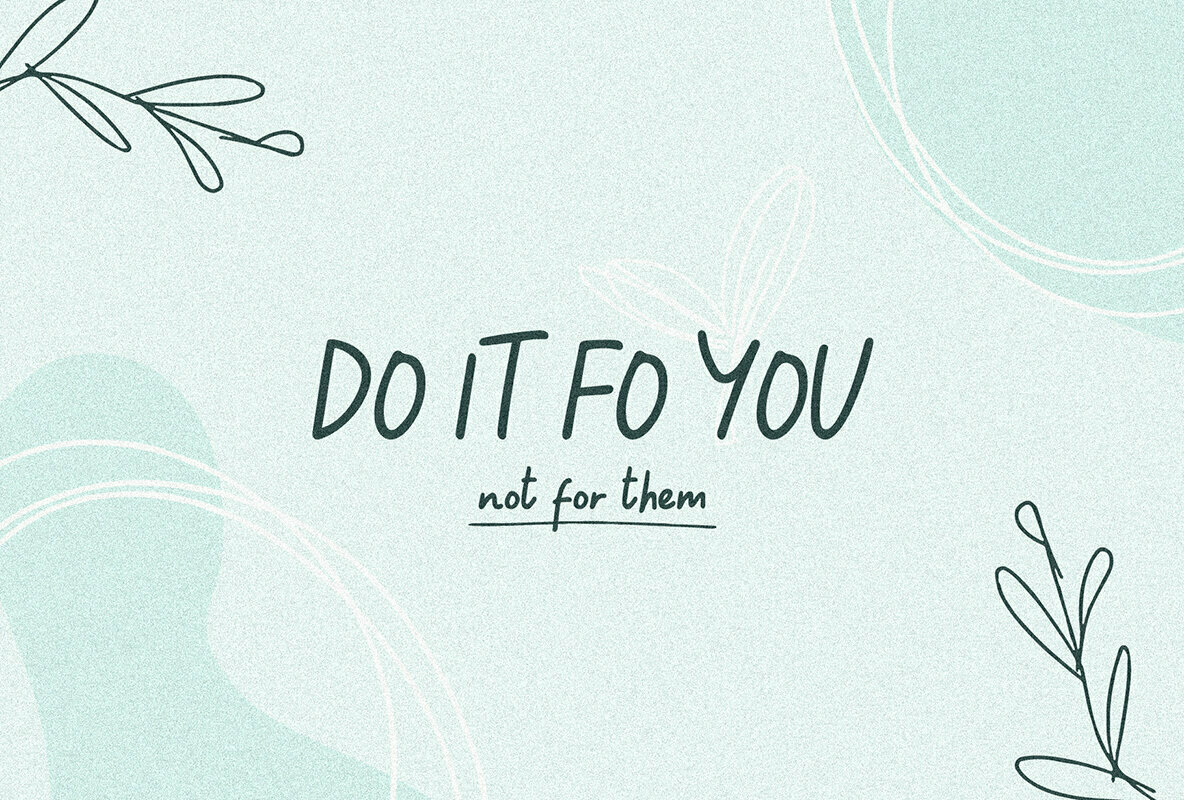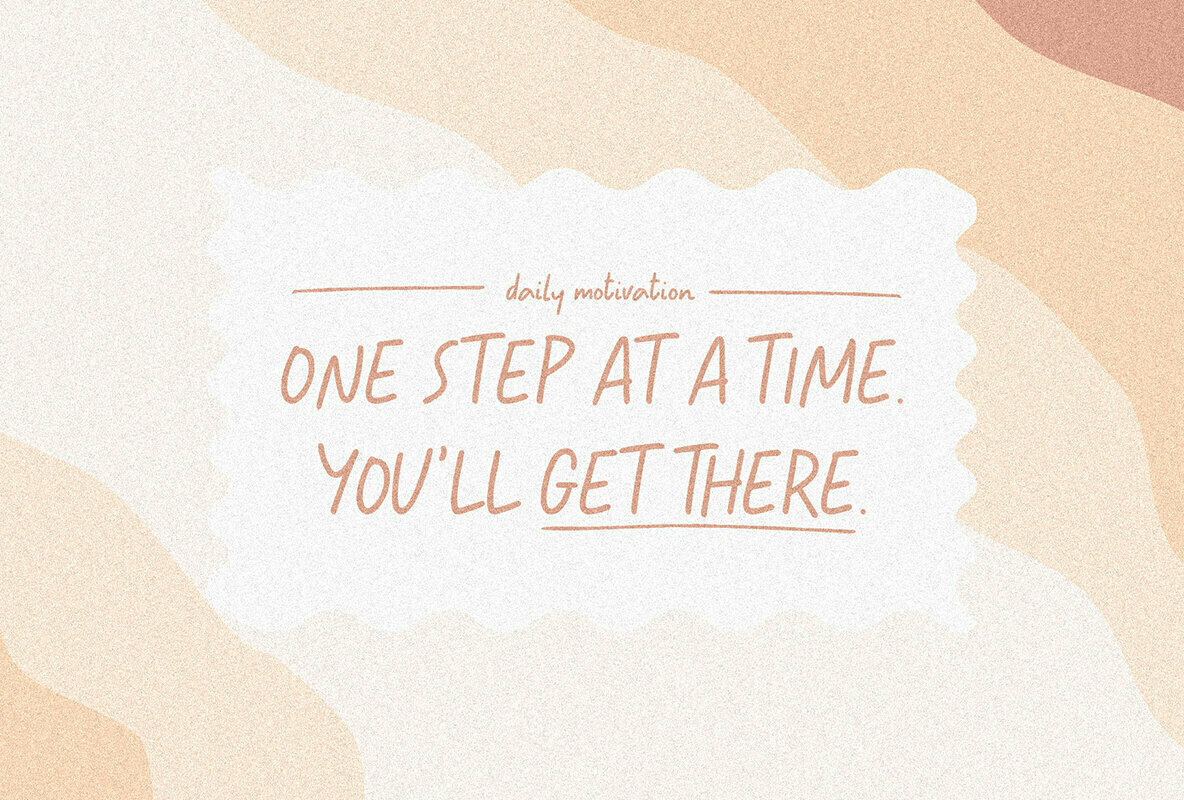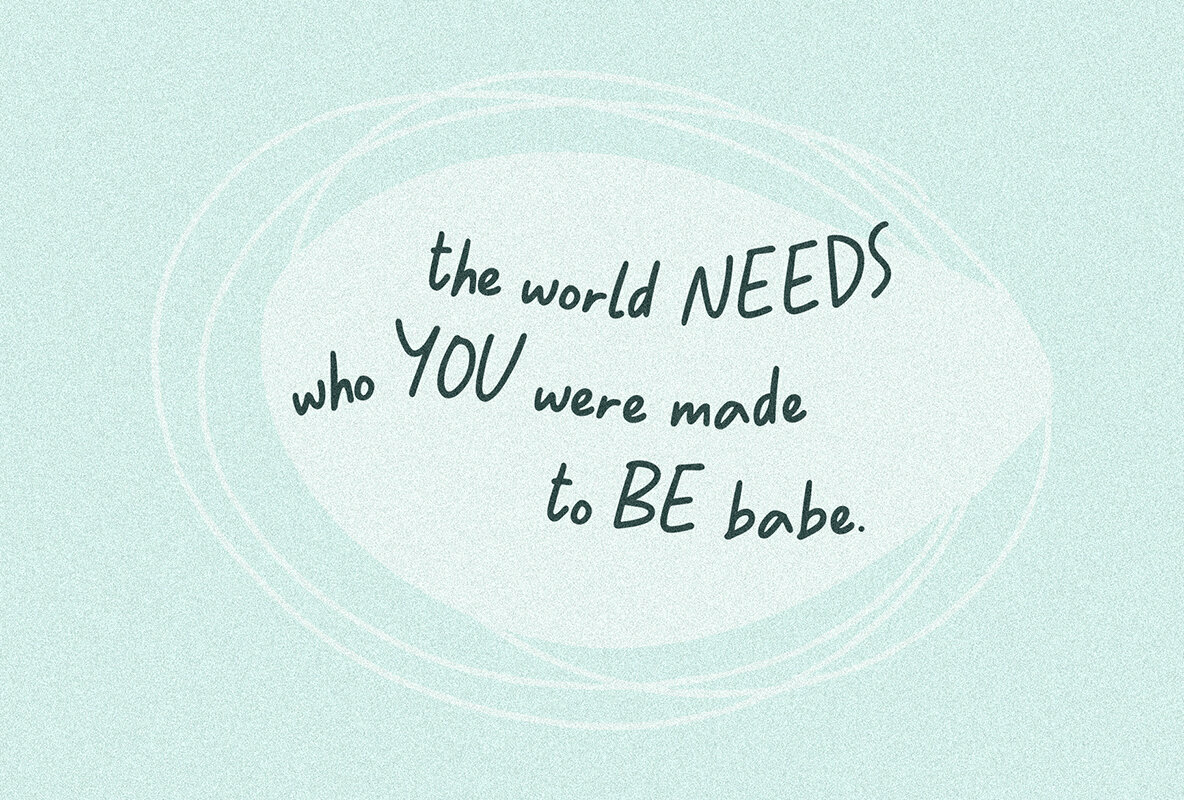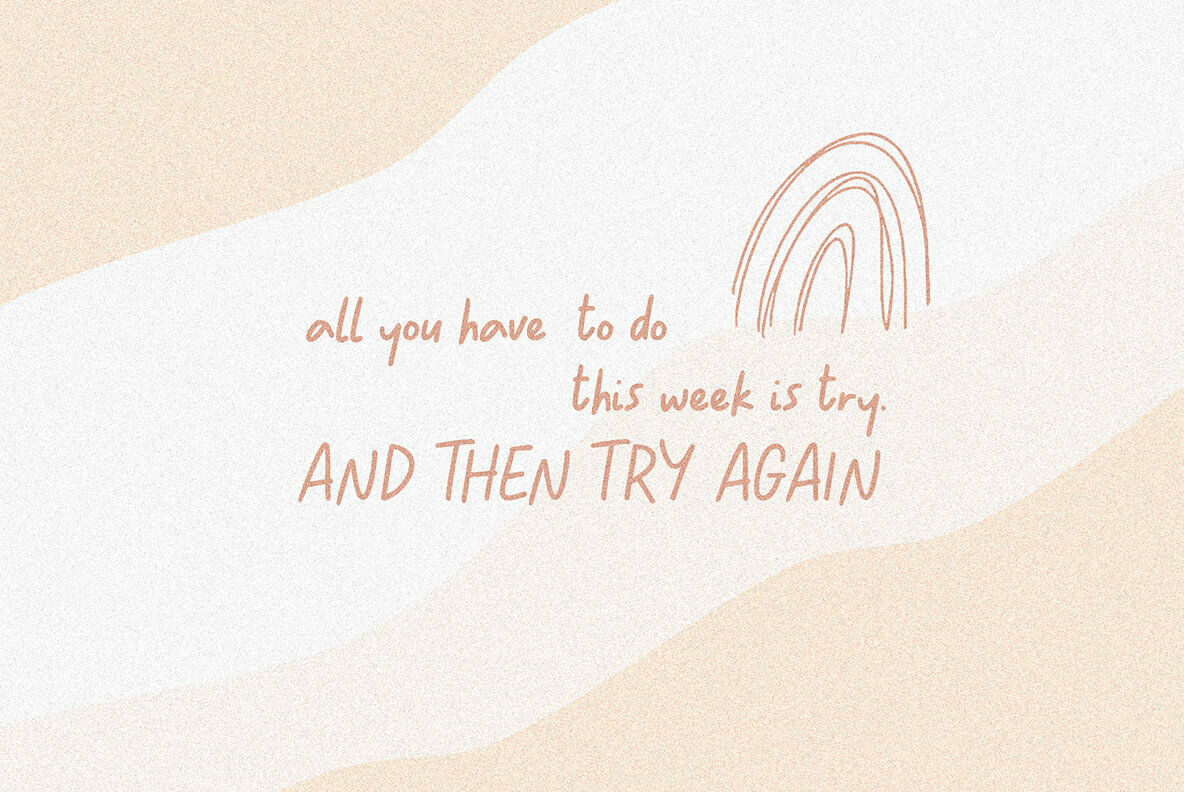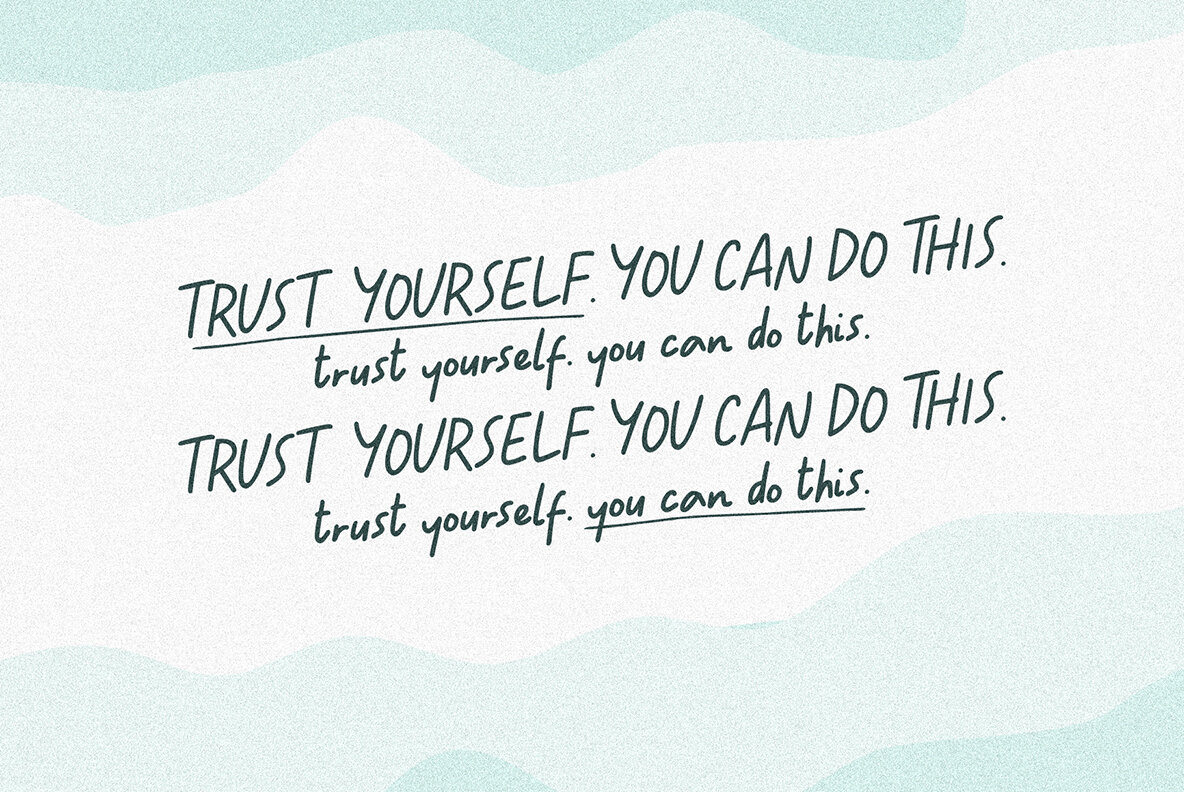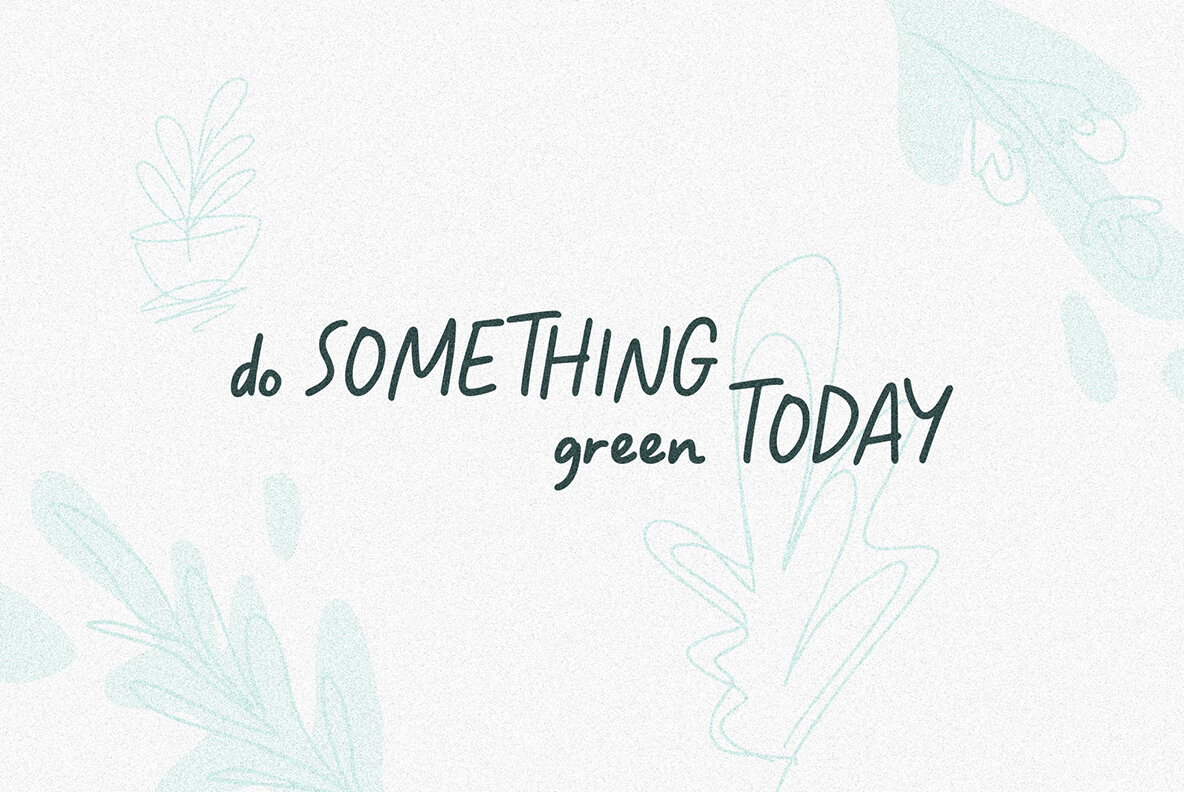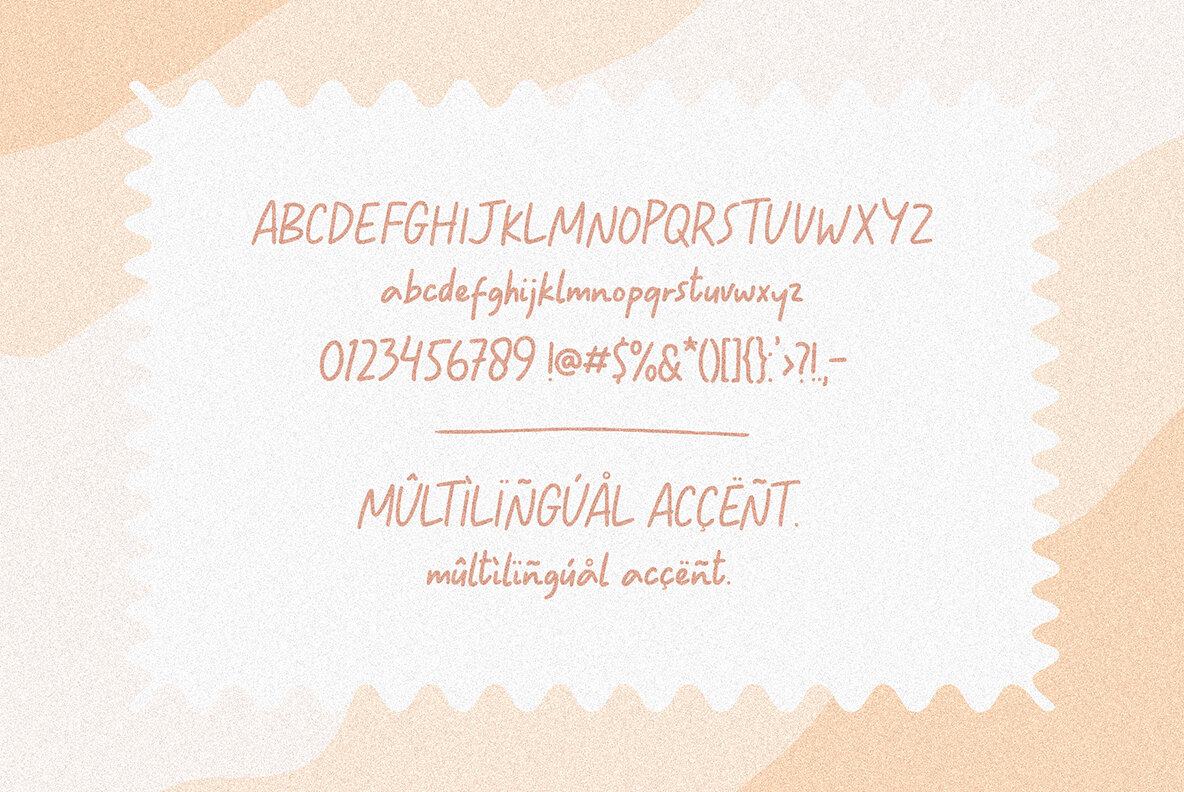
Slowly Life Font
Slowly Life
Perfect for those looking to infuse a touch of whimsy into their projects, Slowly Life by Invasi Studio is a friendly and engaging handwritten font offering a brush style that exudes charm. Its playful character is ideal for adding a unique flair to your design work. Whether you're crafting notes, quotes, or sweet greeting cards, Slowly Life can elevate your visual communication. The font is also a fantastic choice for standout branding, ensuring your message is delivered with warmth and personality.Slowly Life: A Playful Handwritten Font